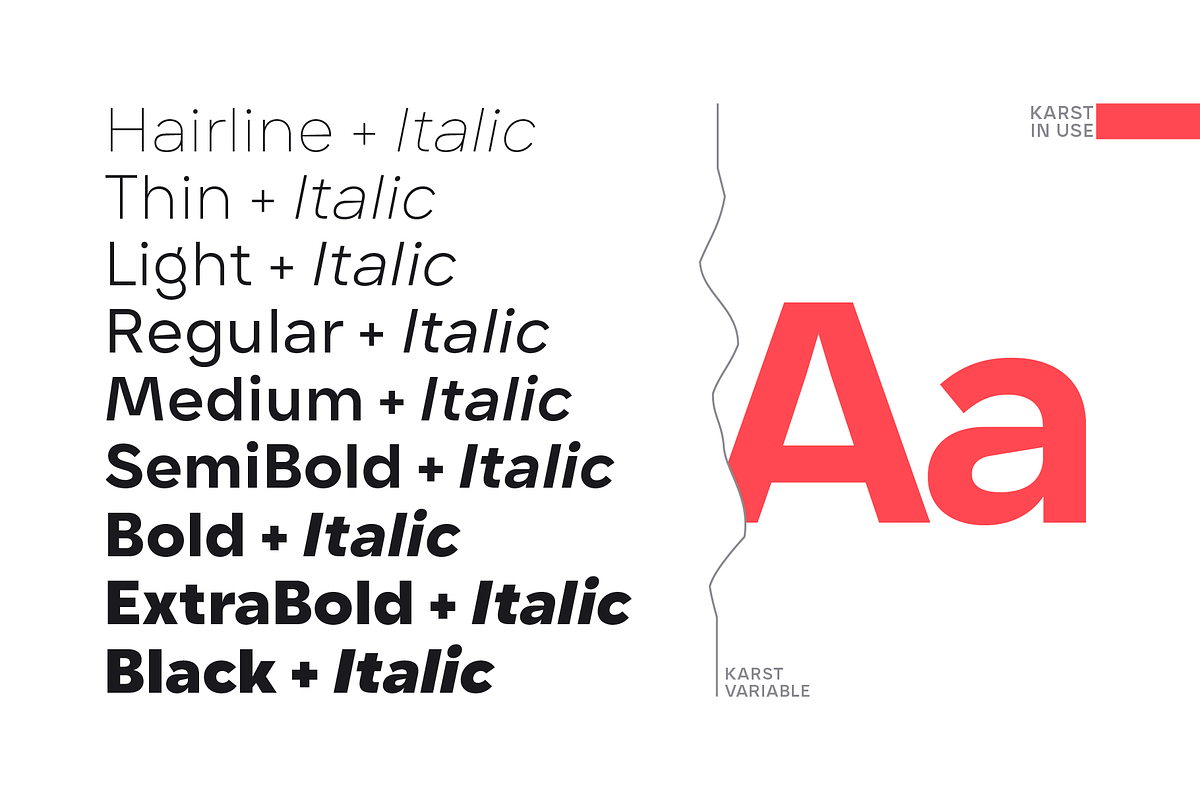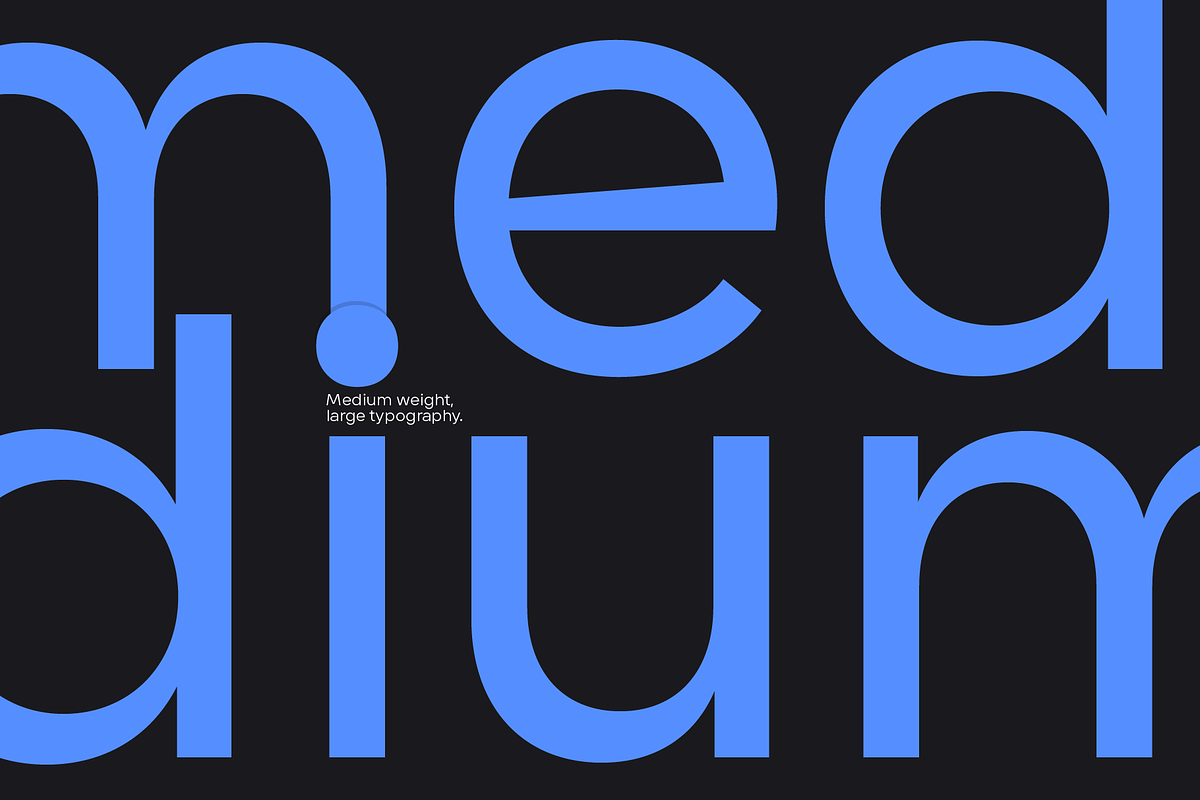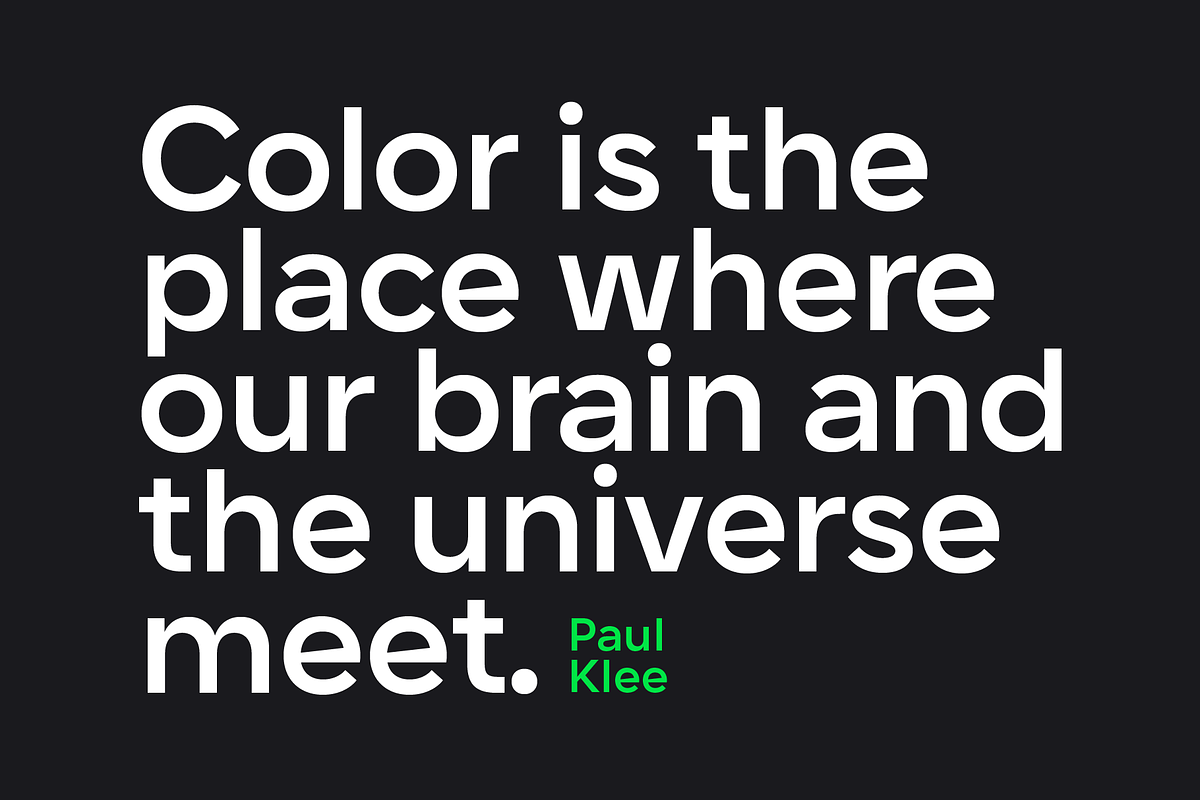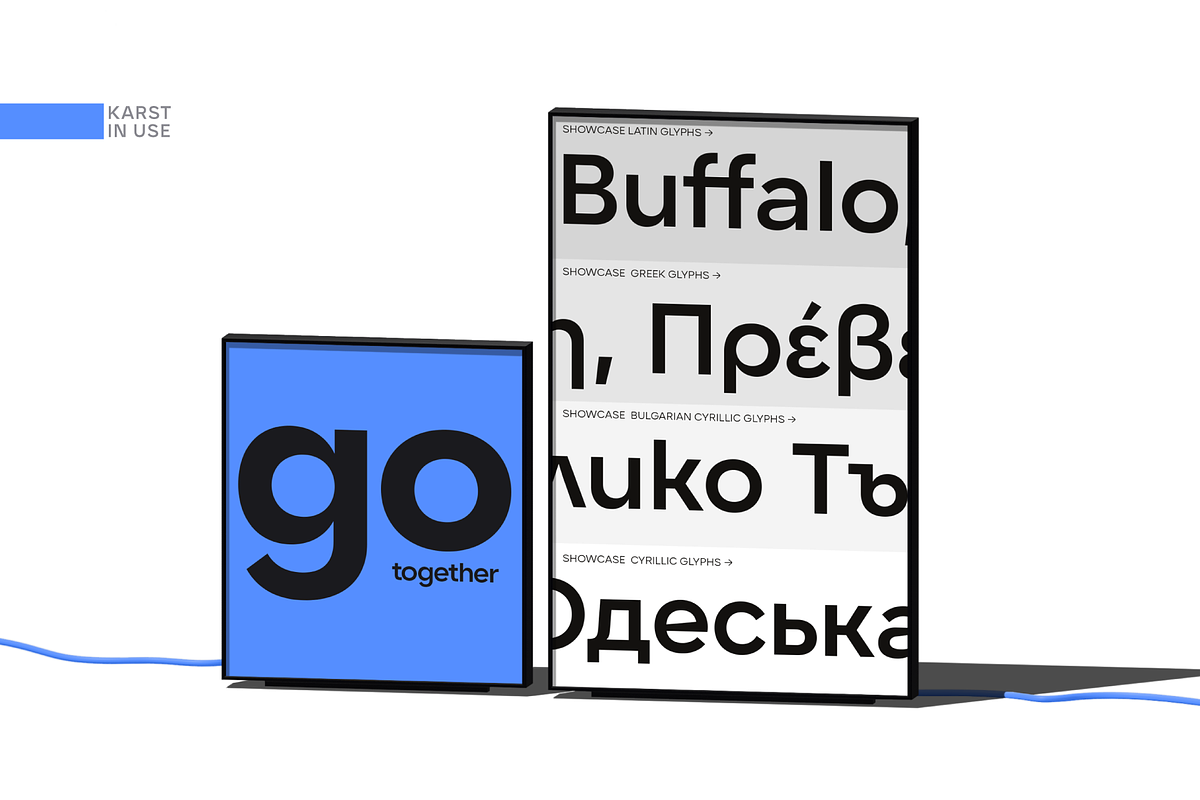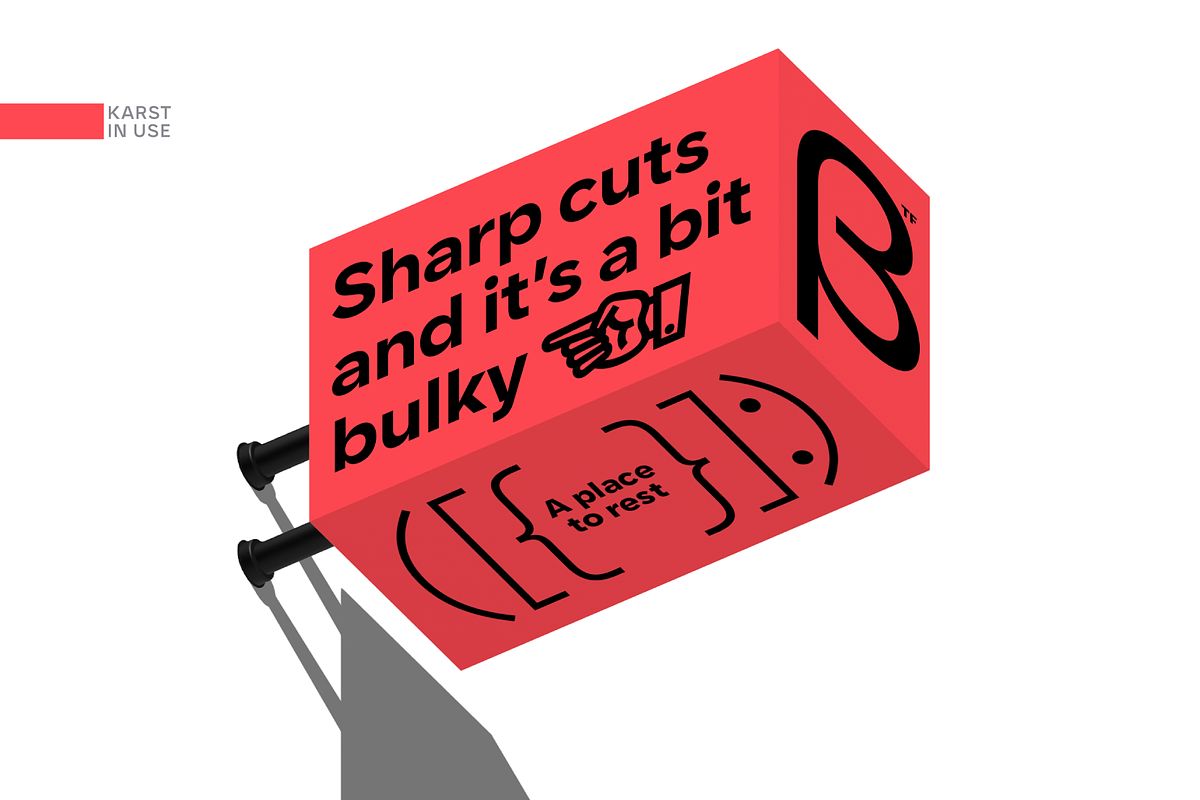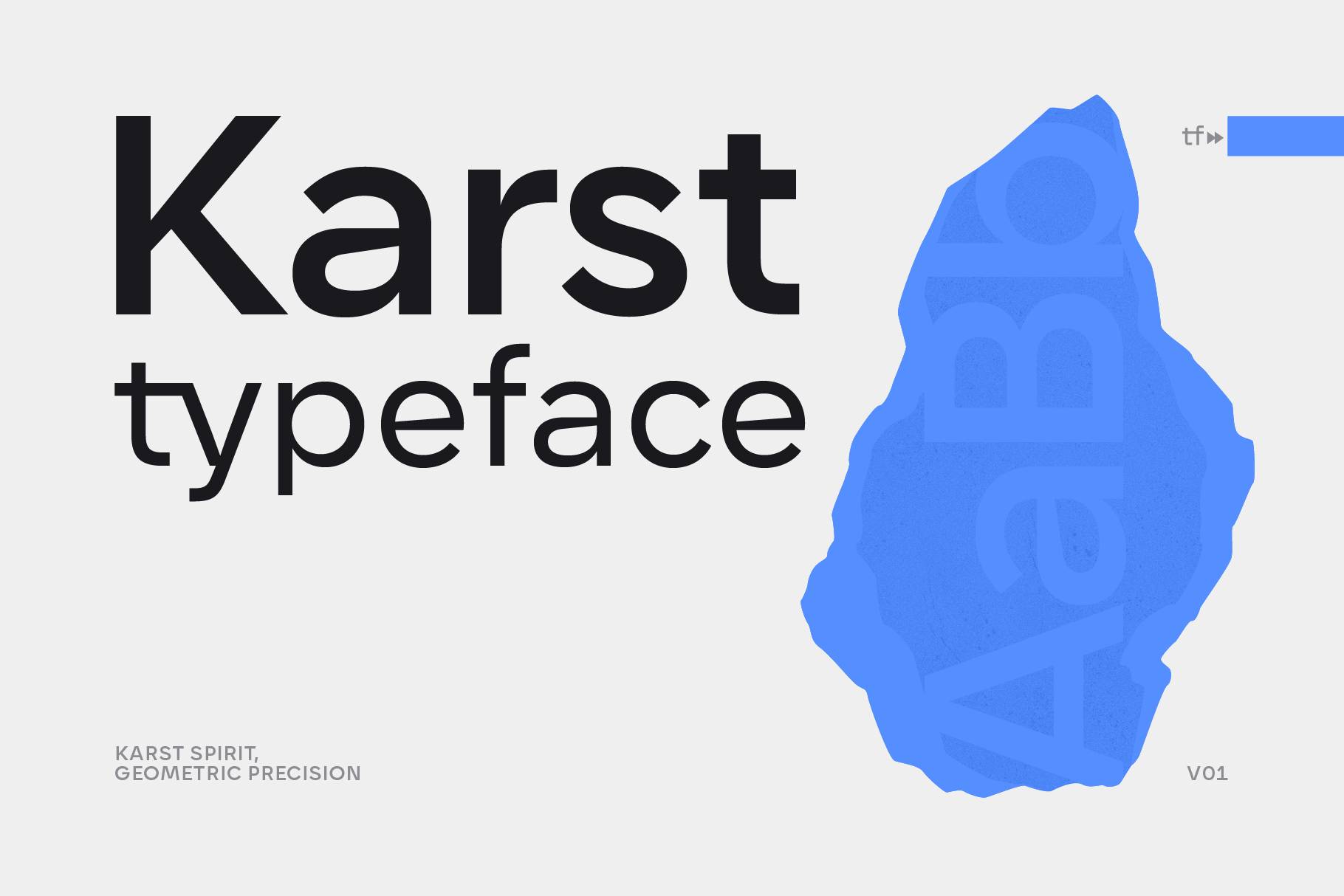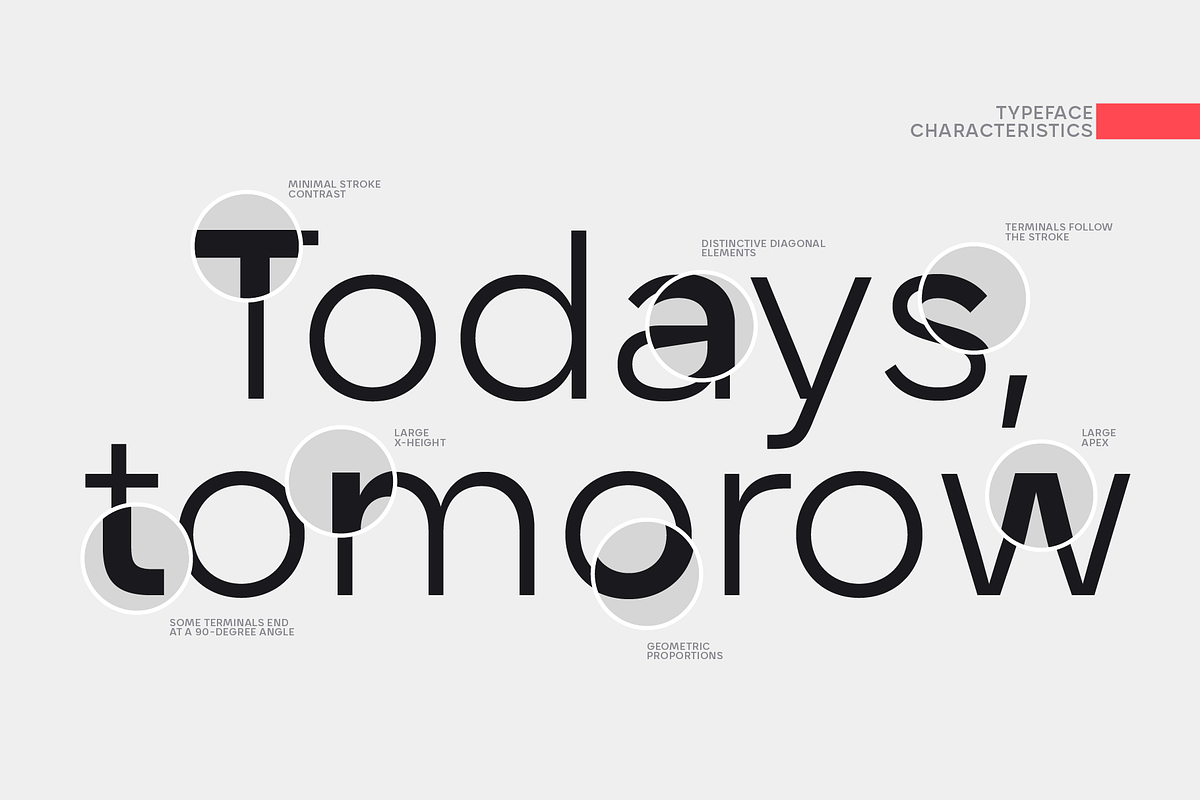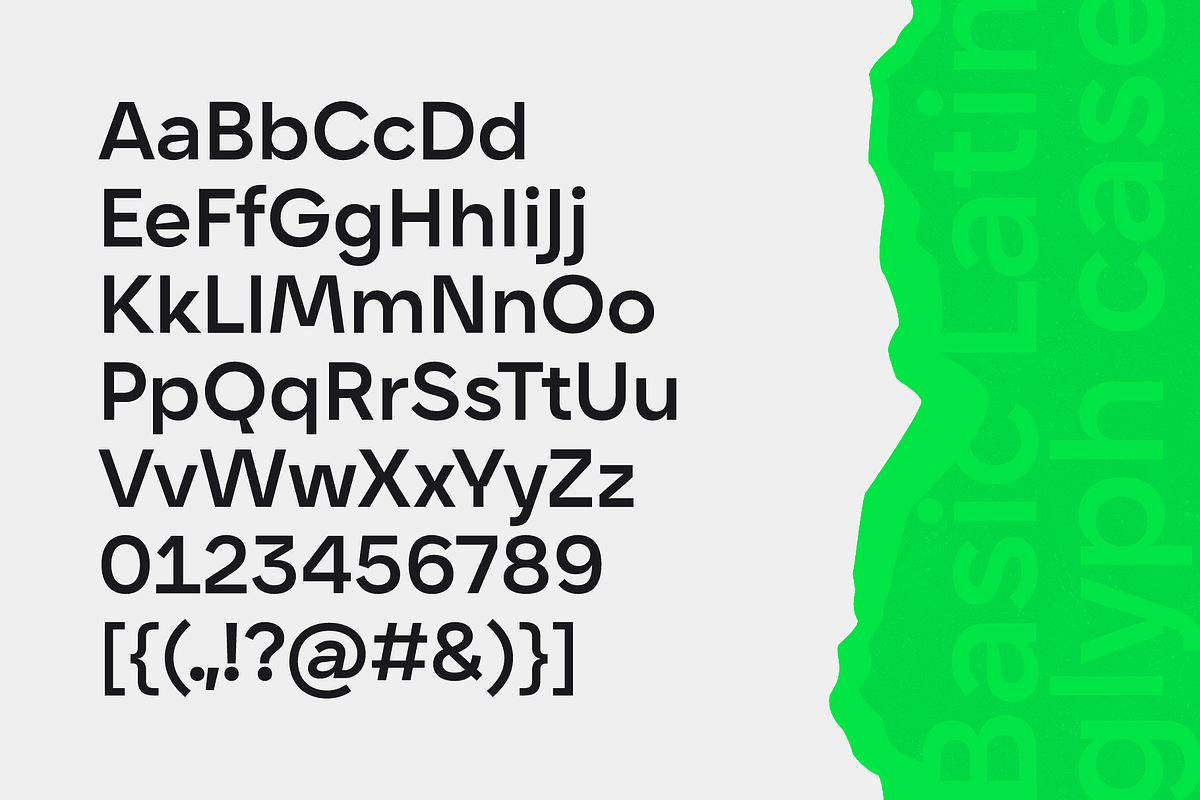
Karst Font Family
Karst is a geometric sans-serif typeface characterized by precise angles and contemporary shapes. Combining geometric clarity with subtle angular details, Karst achieves excellent readability through its high x-height, open letterforms, and minimal contrast between horizontal and vertical strokes. This makes Karst effective in both headlines and body text. The typeface draws inspiration from Karst landscapes—natural geological formations known for their distinctive combination of smooth curves and sharp edges. This interplay of softness and angularity is clearly reflected in Karst’s design, notably through the sharply defined diagonal cuts and blunt endings in letters such as "A," "Y," "K," "M," and "V." The horizontal bars in lowercase letters like "e" and "a" also feature angled terminals, contributing a subtle visual uniqueness. Karst offers a comprehensive family of 18 styles, comprising nine weights from Thin to Black, each with matching italics. It is available in OTF, TTF, web font formats, and as a variable font featuring two adjustable axes—weight and italic. This flexibility makes Karst suitable for diverse design applications, from web and digital interfaces to branding, editorial projects, and printed materials. Supporting over 220 languages, Karst covers Extended Latin, Cyrillic, and Greek scripts. It includes advanced OpenType features such as standard and discretionary ligatures, stylistic alternates for modern variations of letters "a" and "g," tabular figures, small numbers, ordinals, case-sensitive punctuation, and localized forms. Karst’s functional yet distinctive character ensures reliable performance across a wide range of uses.